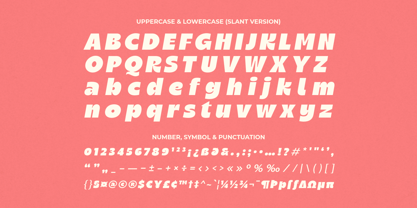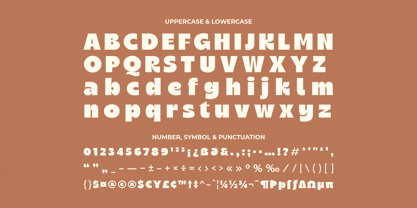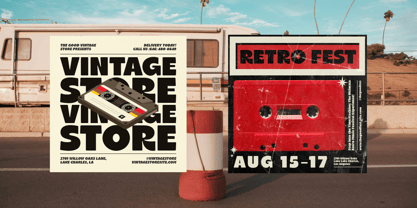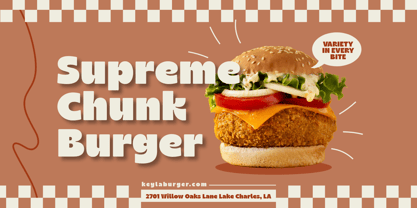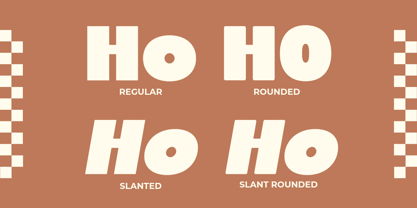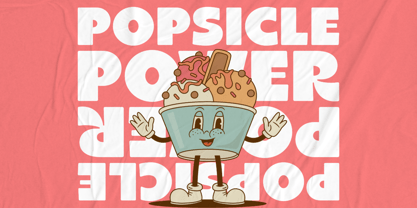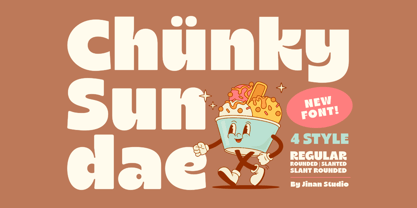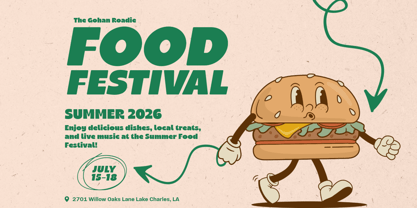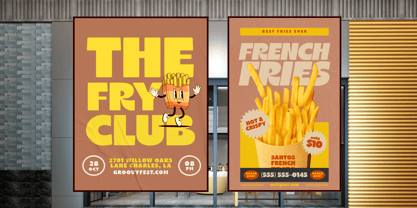
Chunky Sundae
The Chunky Sundae Font Family was designed by Andi Syahdang, Ainun Jinan and published by Jinan Studio. Chunky Sundae contains 4 styles and family package options. More about this family
Chunky Sundae is a fun, chunky display font inspired by retro cartoons and tasty food packaging. Its bold shapes and friendly curves make it perfect for eye-catching logos, posters, packaging, kids’ designs, and cheerful branding. The family includes 4 styles — Regular, Rounded, Slanted, and Slant Rounded — giving you flexible options for expressive and colorful typography. Bring a sweet, nostalgic vibe to your projects with Chunky Sundae. Features - A set of uppercase and lowercase glyphs - Number, symbol, and punctuation - Multilingual Support